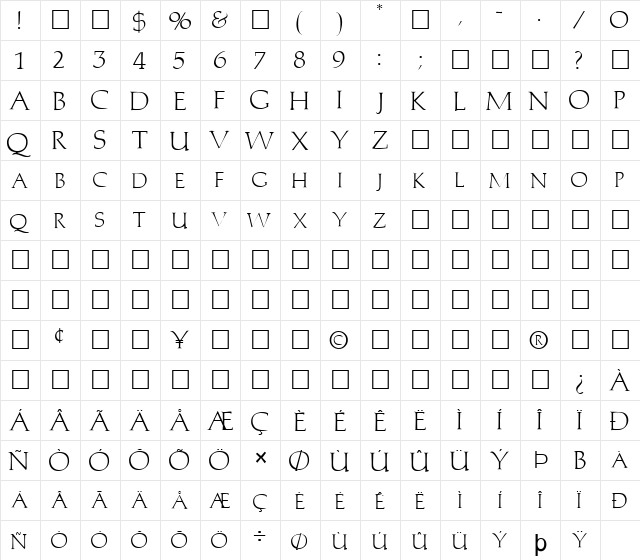
FZ ROMAN 2 Normal
Design Context for FZ ROMAN 2 Typeface
FZ ROMAN 2 takes a measured approach to typography — its balanced proportions and neutral character make it a reliable workhorse for both digital and print work.